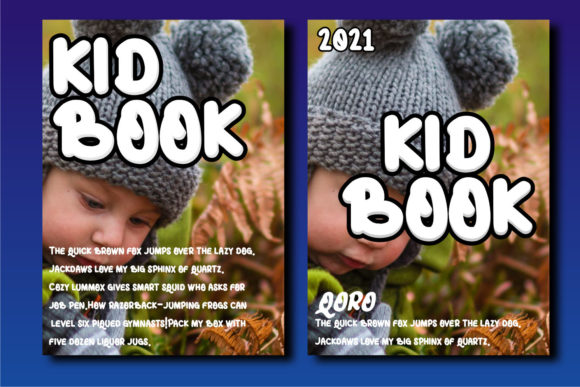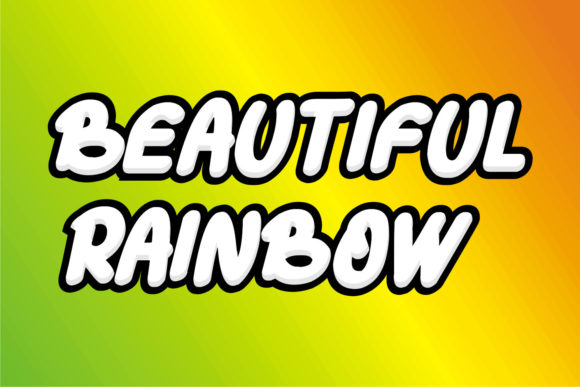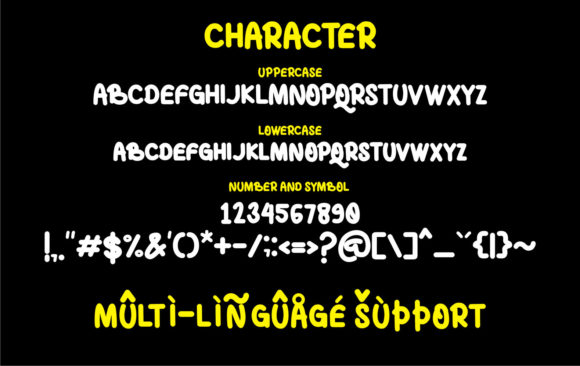
Introduction to Qoro Font
Have you ever been working on a creative project, pouring your heart and soul into it, and then that perfect font comes along and takes it to the next level? For designers, finding the right font can make all the difference between a good design and a great one. And that’s exactly what Qoro Font offers – a game-changing, high-quality display font that instantly elevates any creation.
With its thick lettered design, Qoro Font is perfect for making a statement and adding a touch of coolness to your work. Whether you’re working on a digital design project or need a free download for a print-based design, Qoro Font is a valuable resource that’s sure to impress. Plus, its simple yet strong visual effect makes it easy to use and versatile enough for any creative project.
From adding a touch of personality to your branding materials to creating a striking visual effect for your website, Qoro Font is a design resource that’s hard to resist. And the best part? It’s available for free download, so you can experiment with it on your next project without breaking the bank.
Key Features of Qoro Font
- High-quality design resource suitable for creative projects, available for free download.
- Features a transparent background, making it ideal for use on various backgrounds and designs.
- Available in multiple weights and styles, allowing for versatility in design applications.
- Resolution: High-resolution fonts (up to 300 DPI) for crisp and clear display.
- Designed to be highly legible, making it suitable for both digital and print media.
Honest Review: Qoro Font
I recently stumbled upon the Qoro Font while searching for a unique design resource for my latest creative project. As a designer, I’m always on the lookout for high-quality fonts that can elevate my work. In this review, I’ll share my honest thoughts on the Qoro Font.
- The Qoro Font offers a wide range of styles and weights, making it a versatile design resource.
- The font is highly legible, even on a transparent background, which is a huge plus for designers who work with layered elements.
- The Qoro Font may not be suitable for formal or professional projects, as its playful and whimsical design may come across as unprofessional.
- The font’s OpenType features can be a bit tricky to use, especially for designers who are new to font manipulation.
Overall, I think the Qoro Font is a great addition to any designer’s toolkit. While it may have some limitations, its unique design and versatility make it a valuable resource for creative projects. I’ll definitely be using it again in the future.
Qoro Font
The Qoro Font is a high-quality design resource perfect for any creative project. Its clean and modern design makes it ideal for a variety of applications, from digital graphics to print materials.
Tips for Getting the Most Out of Qoro Font
To get the most out of the Qoro Font, be sure to experiment with different font sizes, colors, and alignments. You can also use the font in combination with other design elements, such as images and graphics, to create a unique and eye-catching design.
The Qoro Font is perfect for a variety of applications, including:
– Digital graphics and animations
– Print materials, such as business cards and brochures
– Social media graphics and posts
– Website design and development
Can I use the Qoro Font on a website with a transparent background?
Yes, the Qoro Font is optimized for use on websites with transparent backgrounds. The font’s design is specifically crafted to work well on various backgrounds, including transparent ones. Simply apply the font to your website and adjust the settings as needed to achieve the desired look.